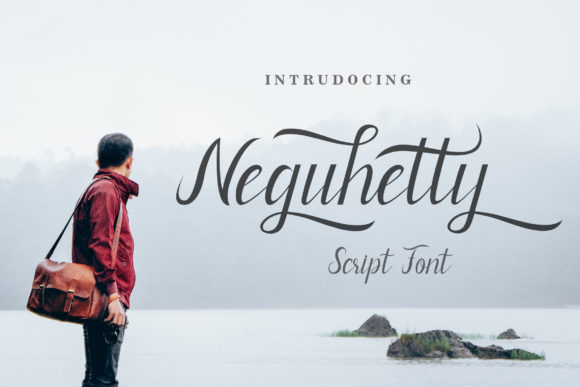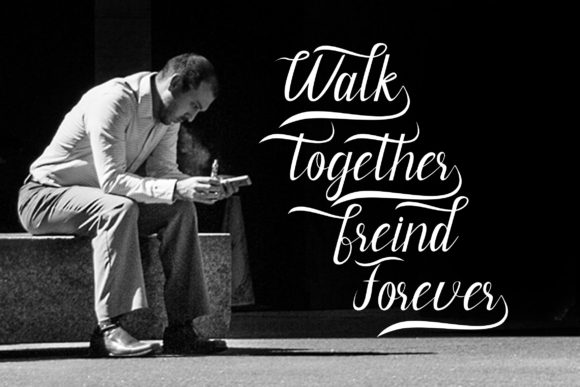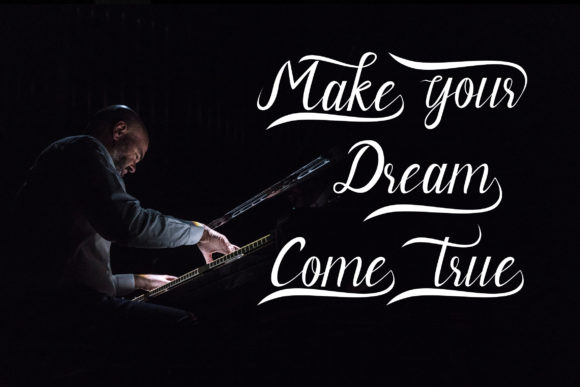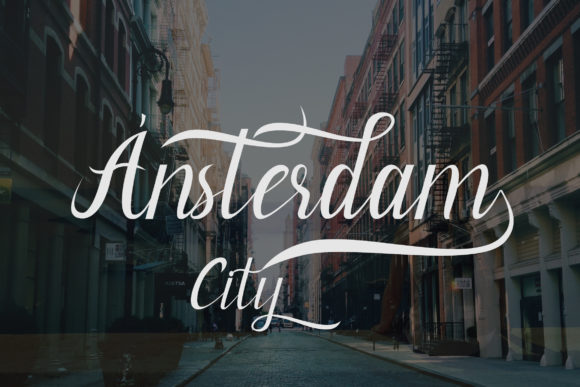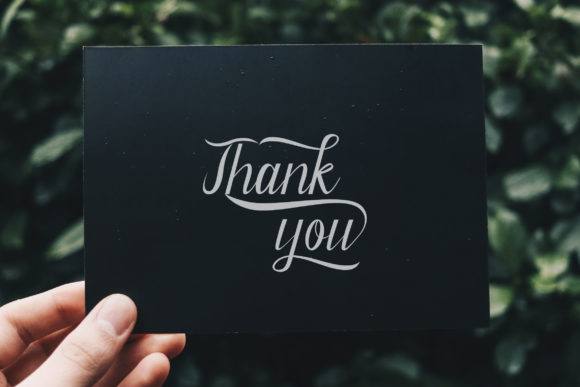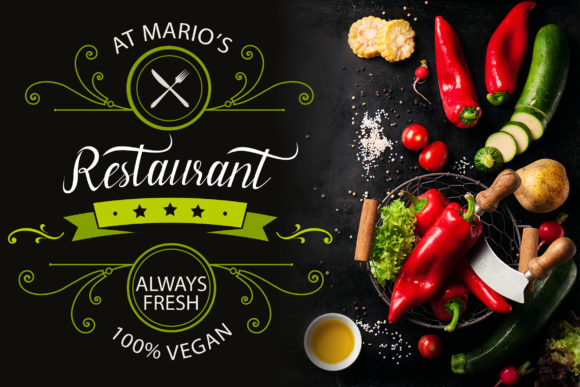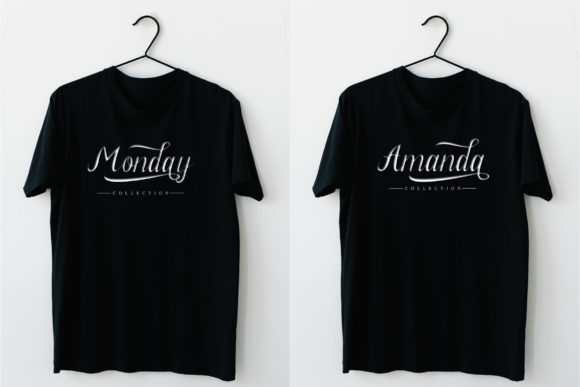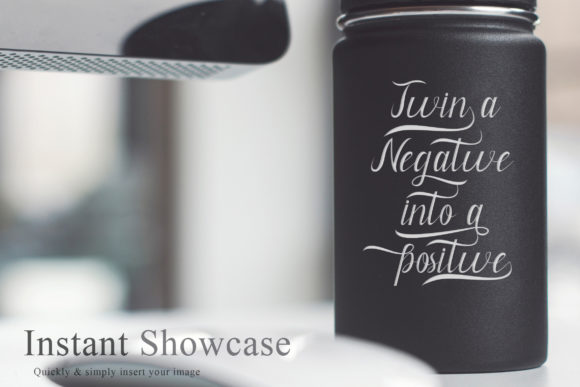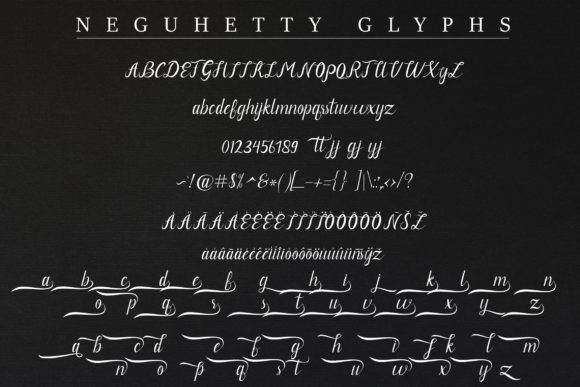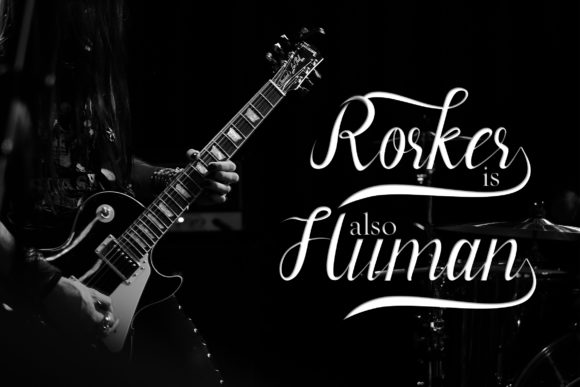
Neguhetty Font
About Neguhetty Font
The Neguhetty is an amazing script typeface with a sublime appearance. It’s elegant, versatile and perfect for adding an upscale and chic look to your designs.